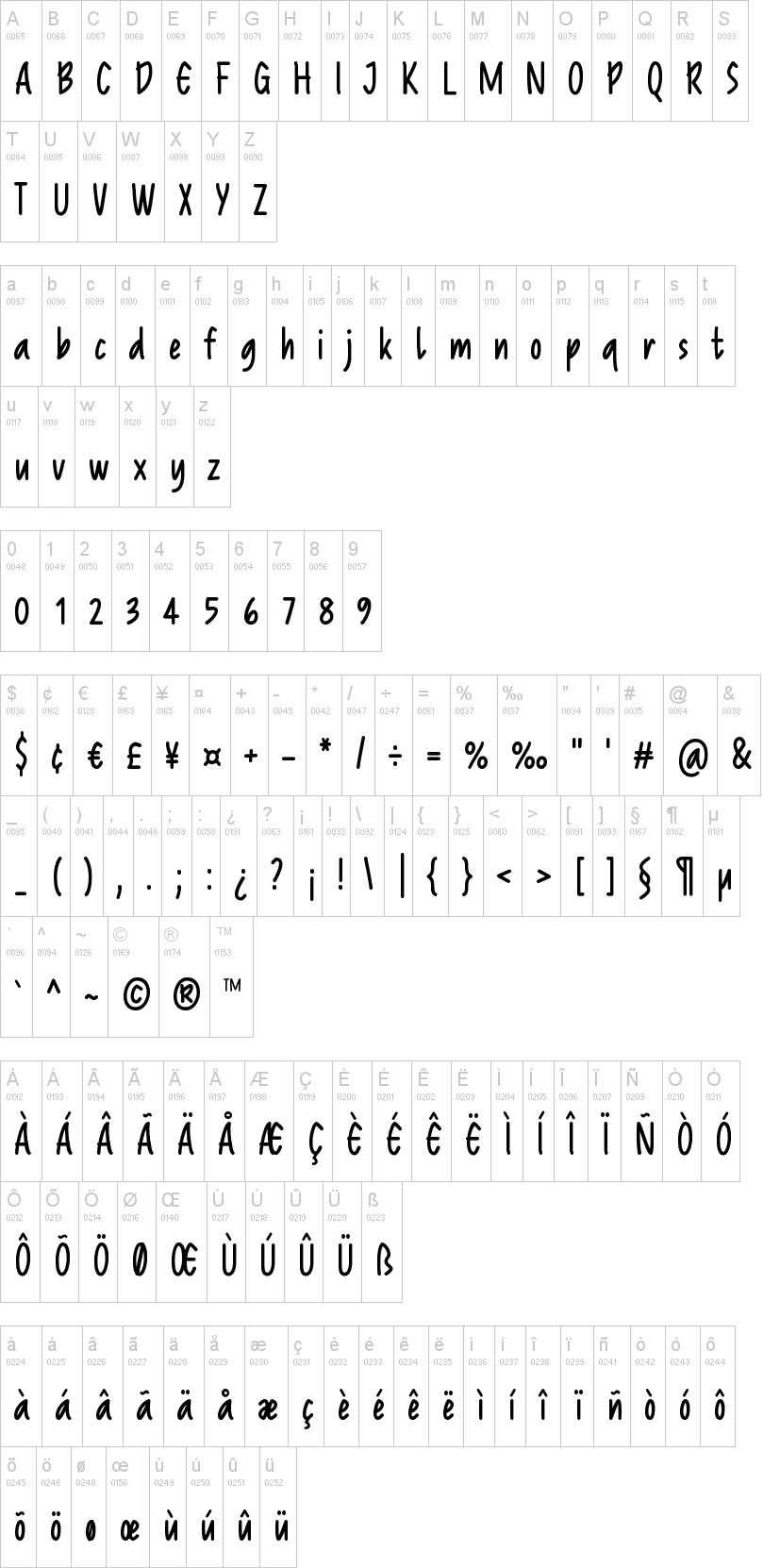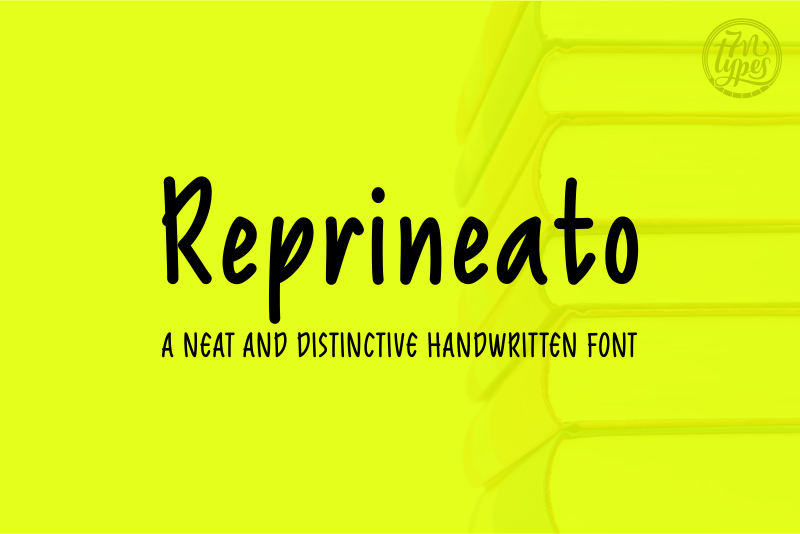
Reprineato Regular-Italic.otfNote of the authorReprineato is a bold expressive handwritten typeface. It has a strong look and distinctive characters that make it is easy to read and is great for adding a personal touch to designs. It is good to be used for adding a personal line in branding or marketing material.